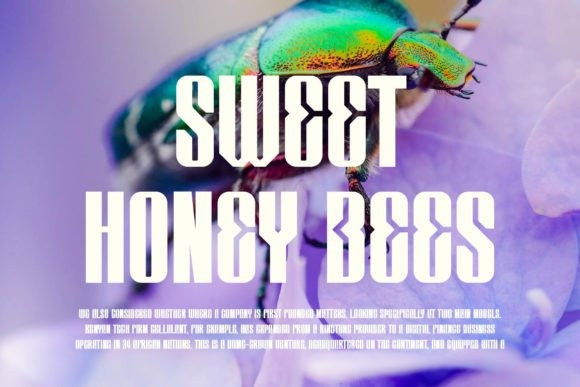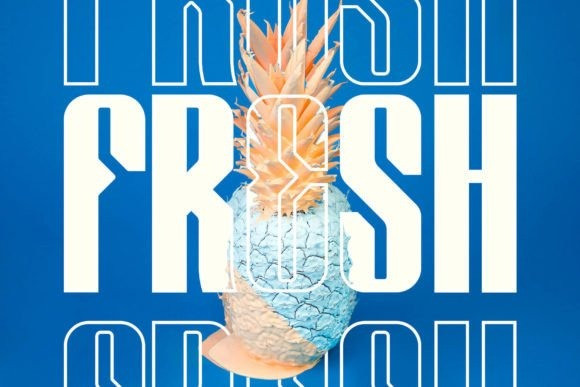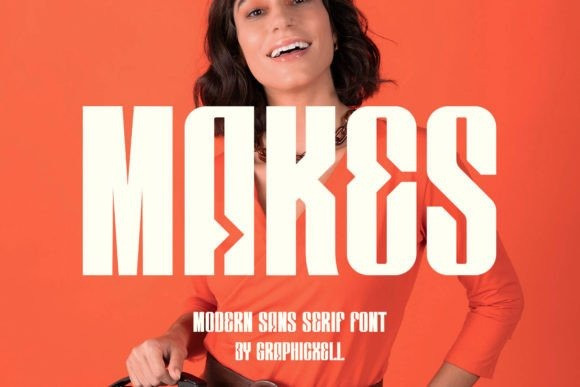
Makes Font
Makes Font, inspired by the famous minimalist logo, Makes is perfect for the purposes of designing templates, brochures, videos, advertising branding, logos, invitations, layout designs, elegant crafting, beauty designs and so much more.